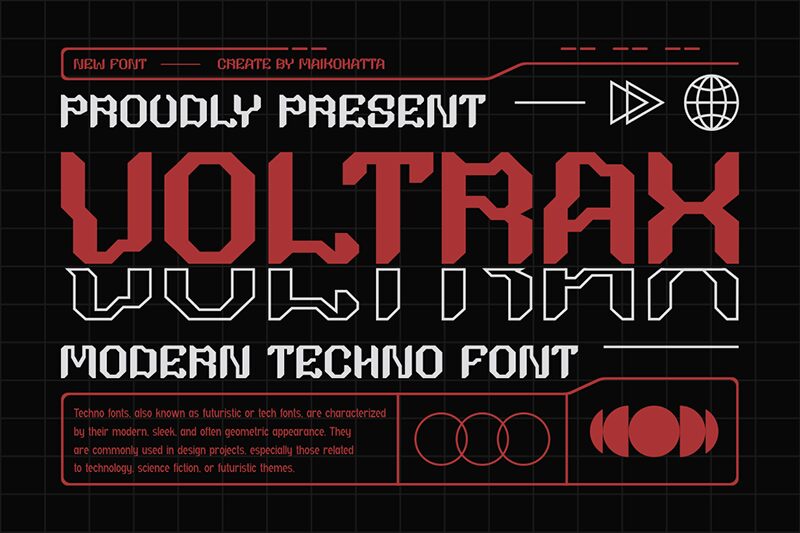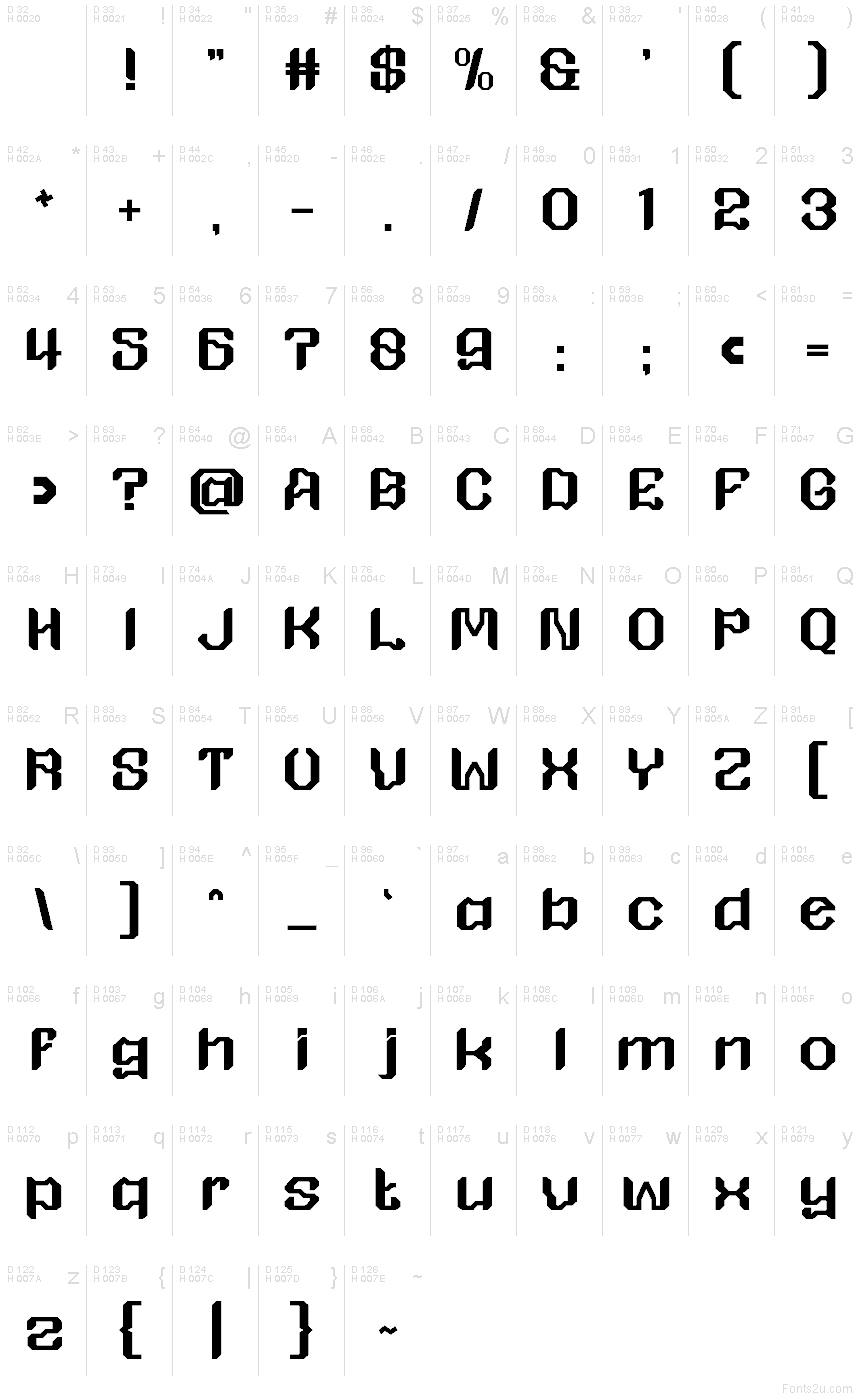
VOLTRAX
Voltrax font by Gilang Ternadho is a free futuristic display typeface. Its chiseled geometry and beveled cuts form a bold, almost exoskeletal rhythm—think hex-like counters, voltage-flash angles, and tight verticals that feel engineered rather than drawn. The strokes look machined and crisp, giving headlines a metallic snap without turning clunky.
Using Voltrax, visual systems snap into place for esports logos, sci‑fi titles, tech event posters, racing decals, gaming overlays, and hardware branding. The wide stance and angular pacing hold up at large sizes with slightly tightened tracking. For body copy, pair this free font with a plain geometric sans to keep the message legible while Voltrax handles the charge.